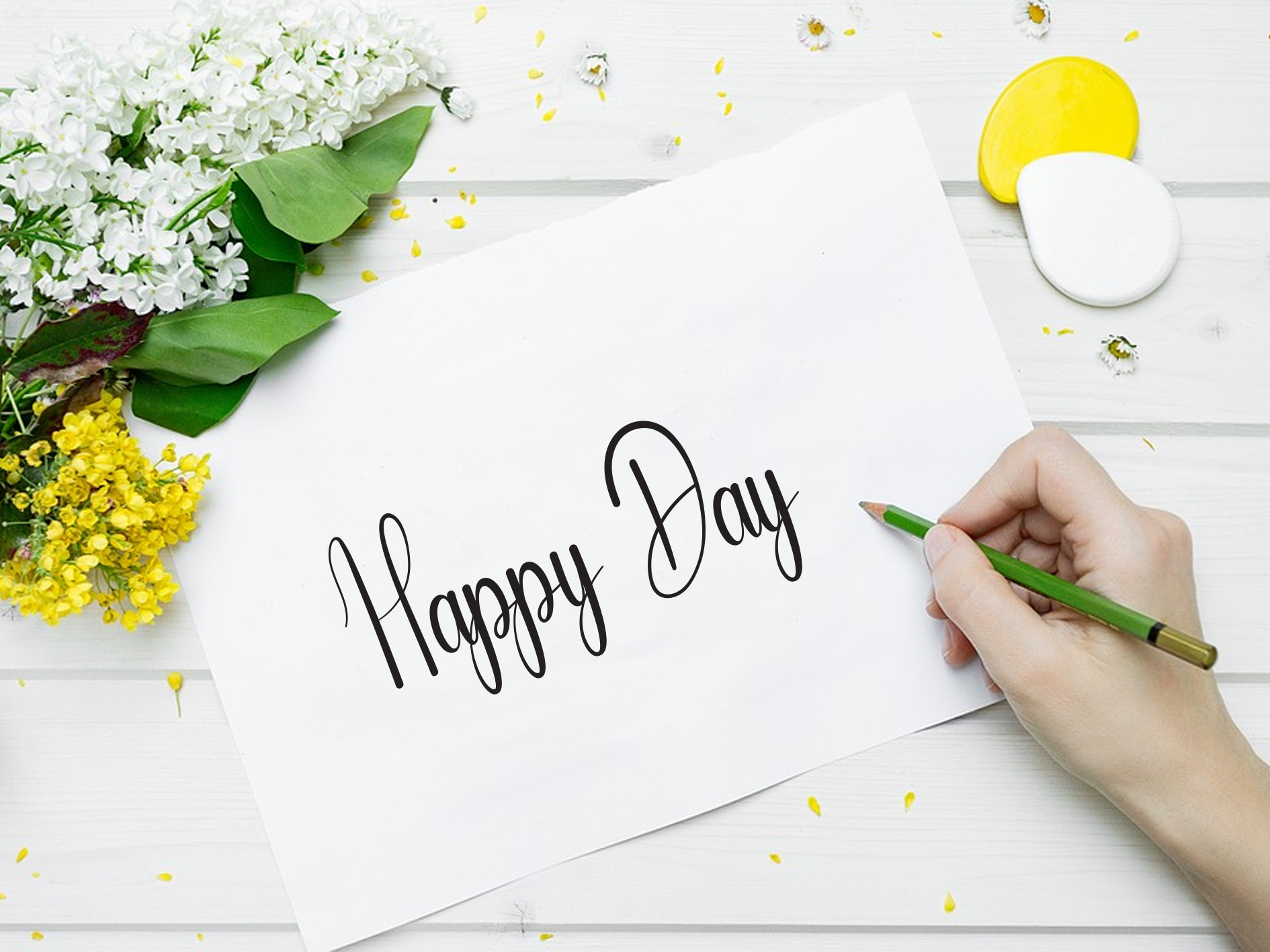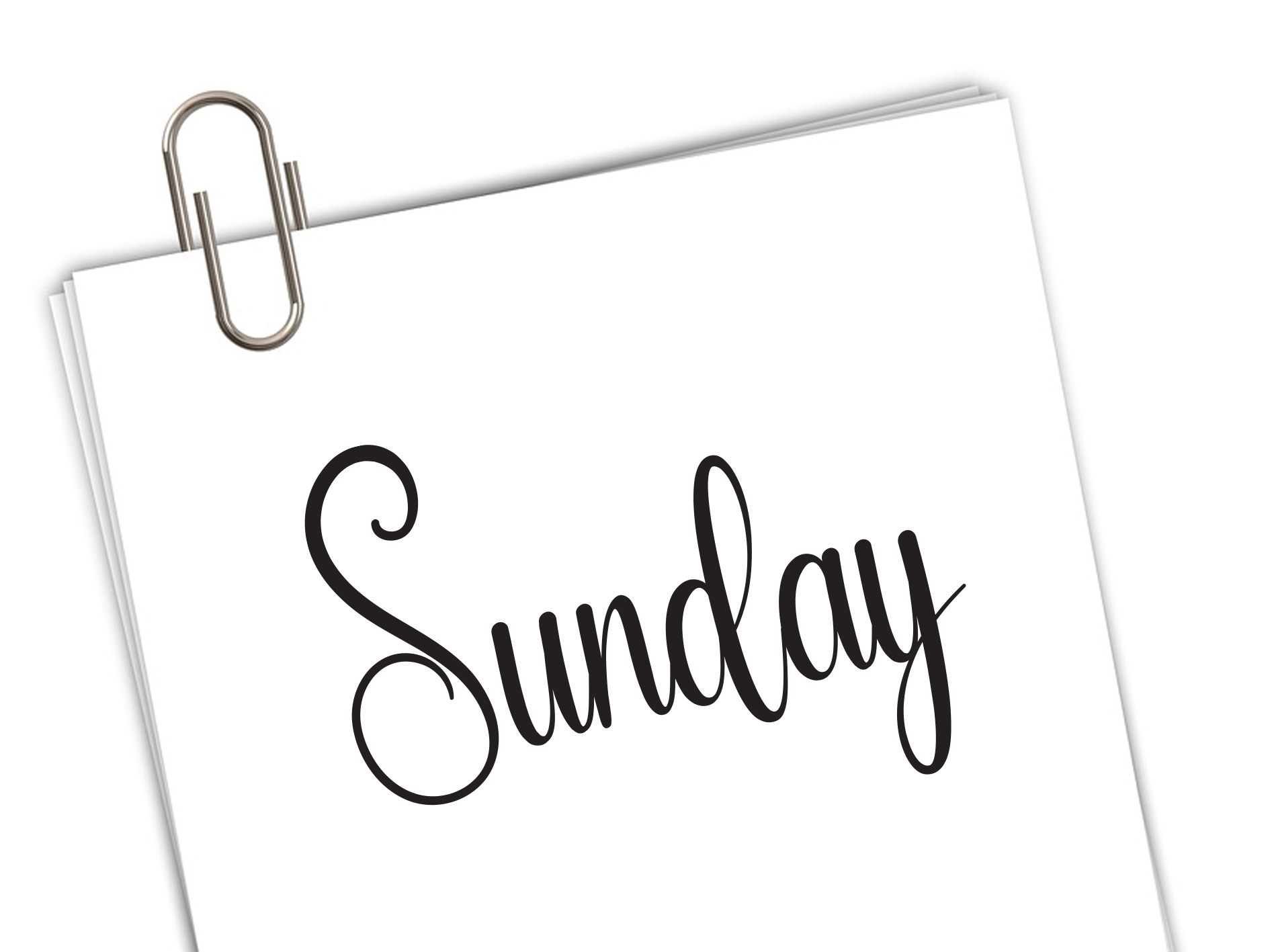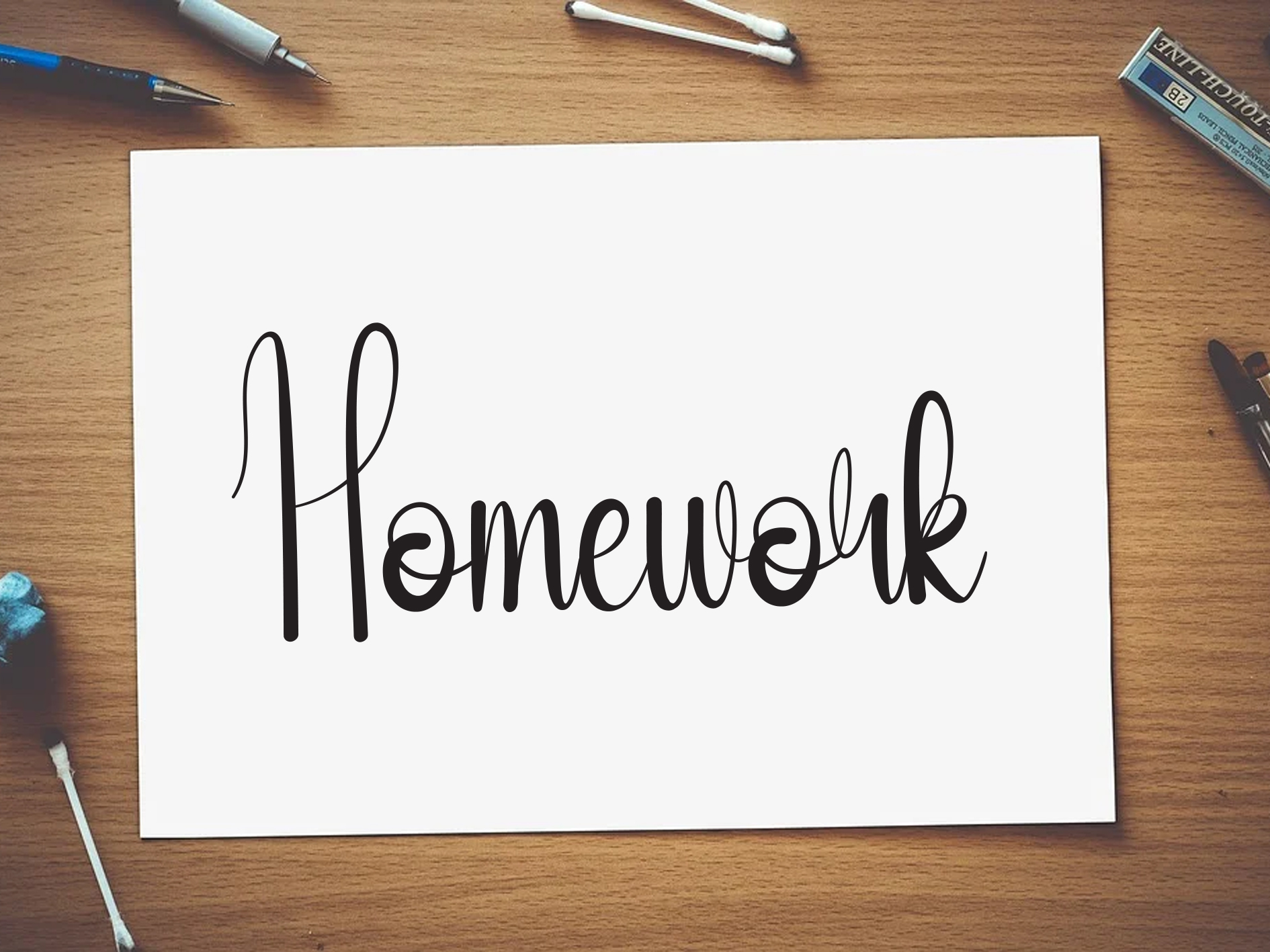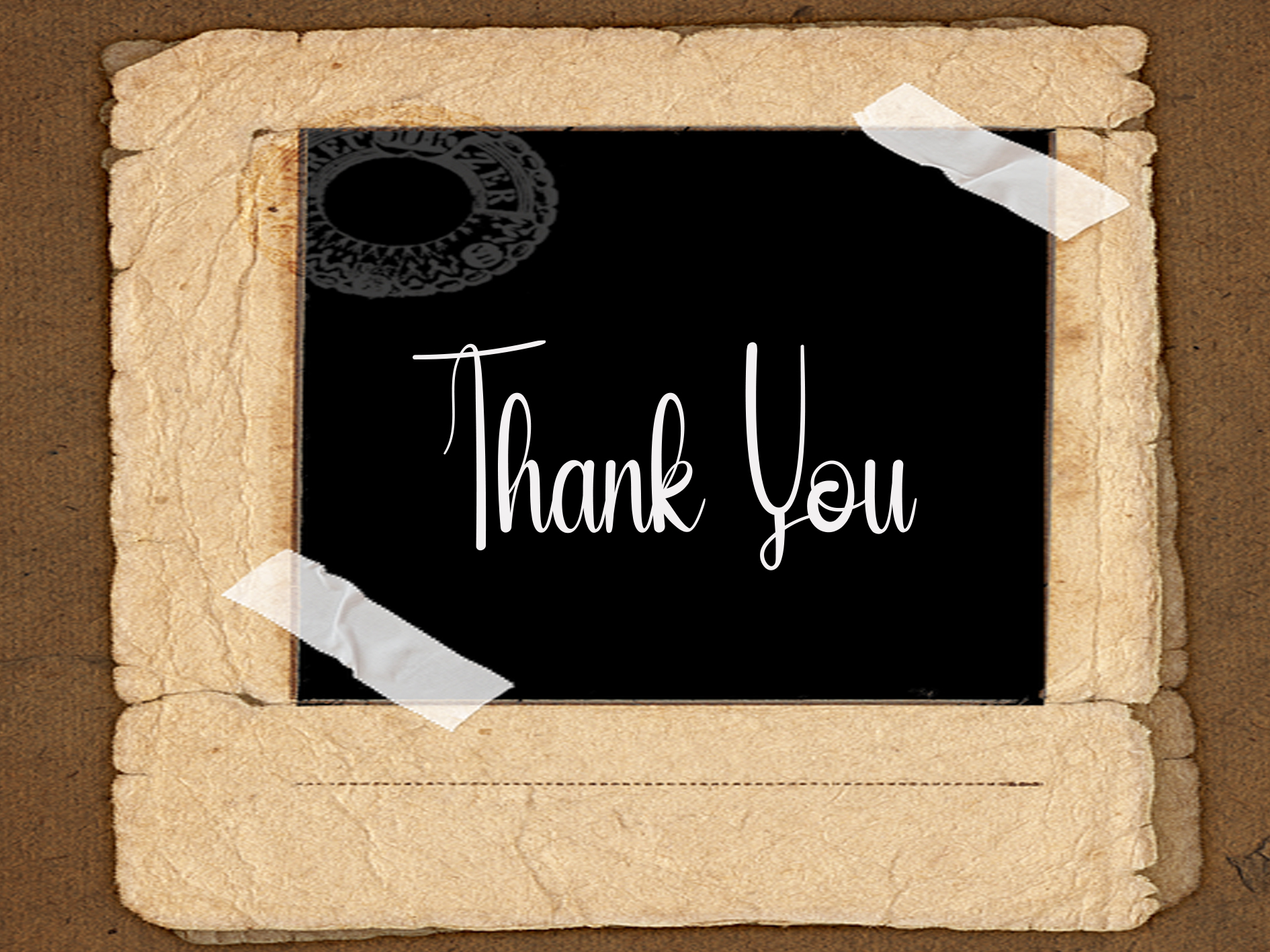
Amanda Script Font
This is a sweet handwritten font that is made with great care in order to produce the expected outcomes. This font can be used for writing various kinds of products according to their respective needs.
This is a beautiful and unique handwritten font, with grooves crafted to produce beautiful lettering for use in a wide variety of products as desired. This product link; https://www.creativefabrica.com/product/amanda-29/ref/1679118/